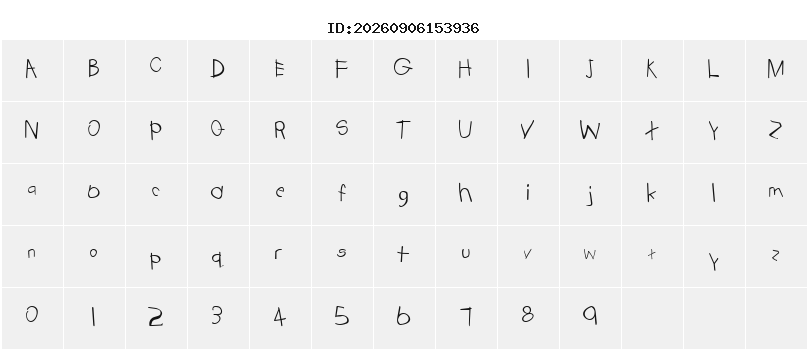
Tabatha Preview
• Font Name: Tabatha
• Full Font Name: Tabatha Normal
About Tabatha.ttf
Tabatha.ttf is a modern, elegant sans-serif font designed for ultimate readability and visual harmony. Perfect for branding, headlines, web design, and print materials.